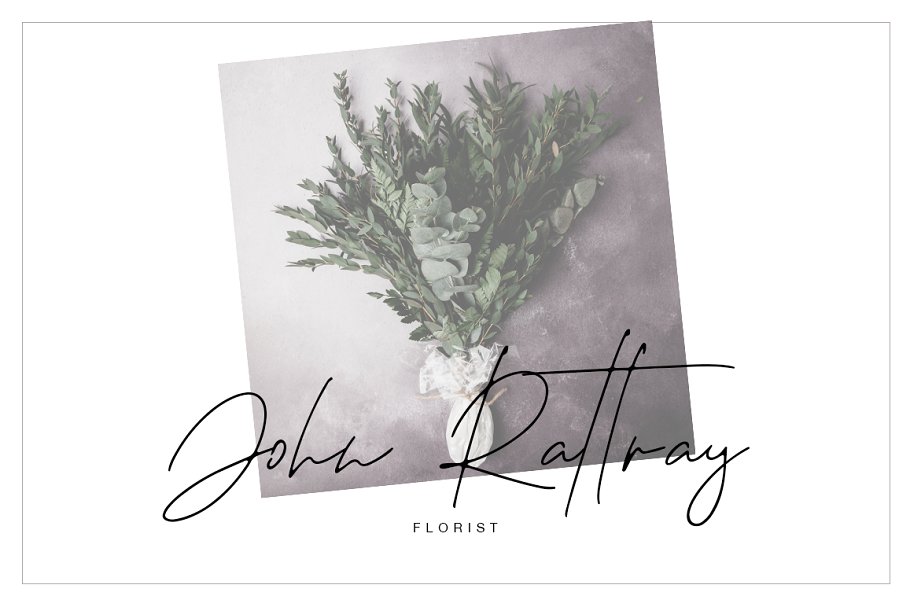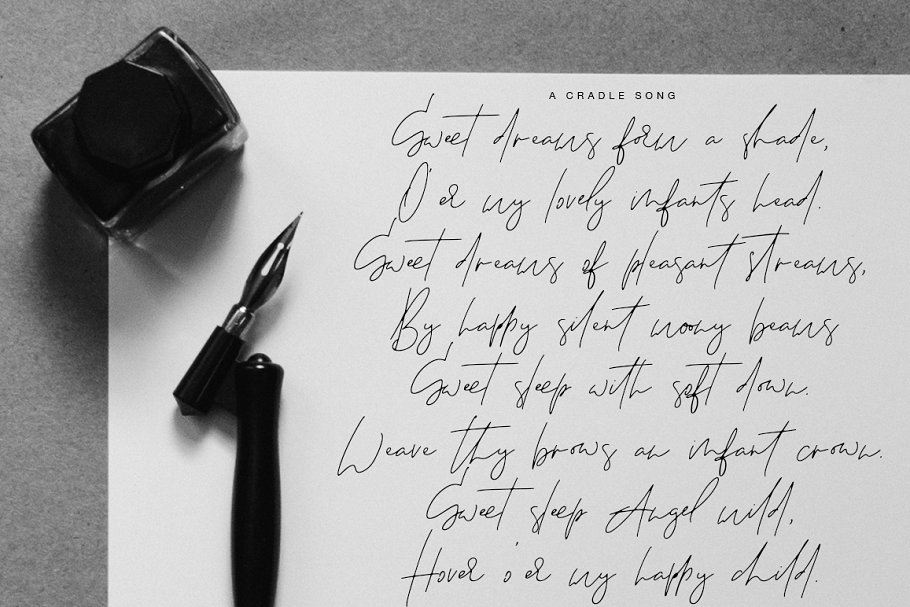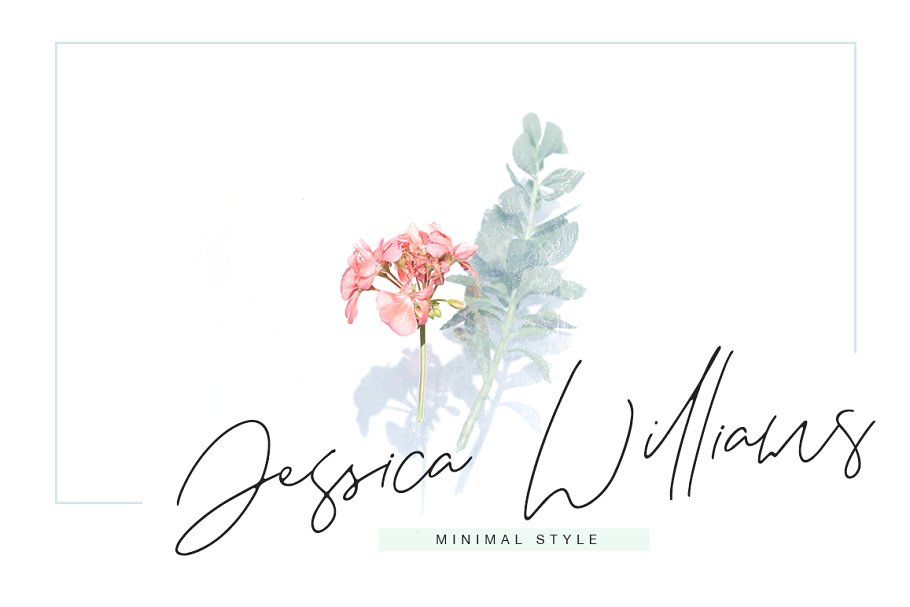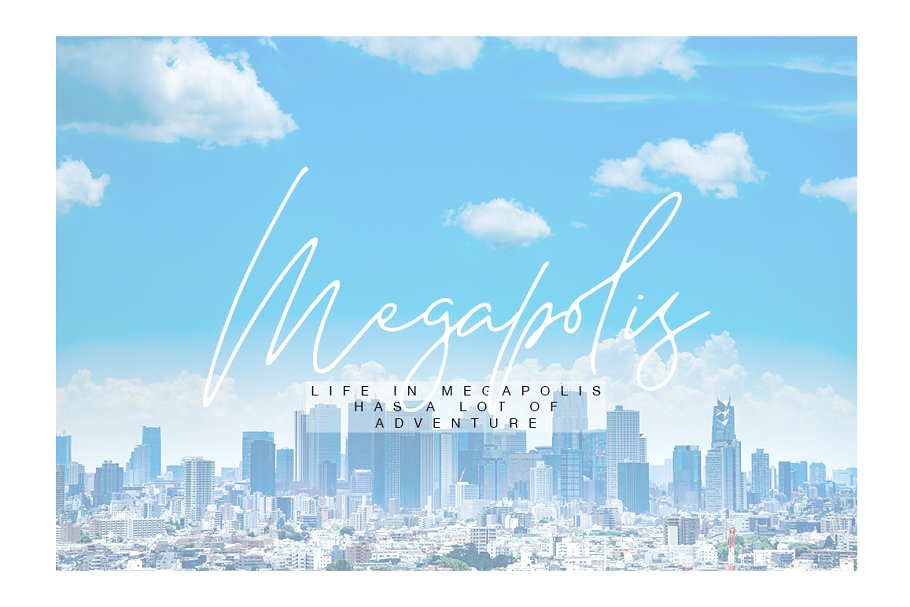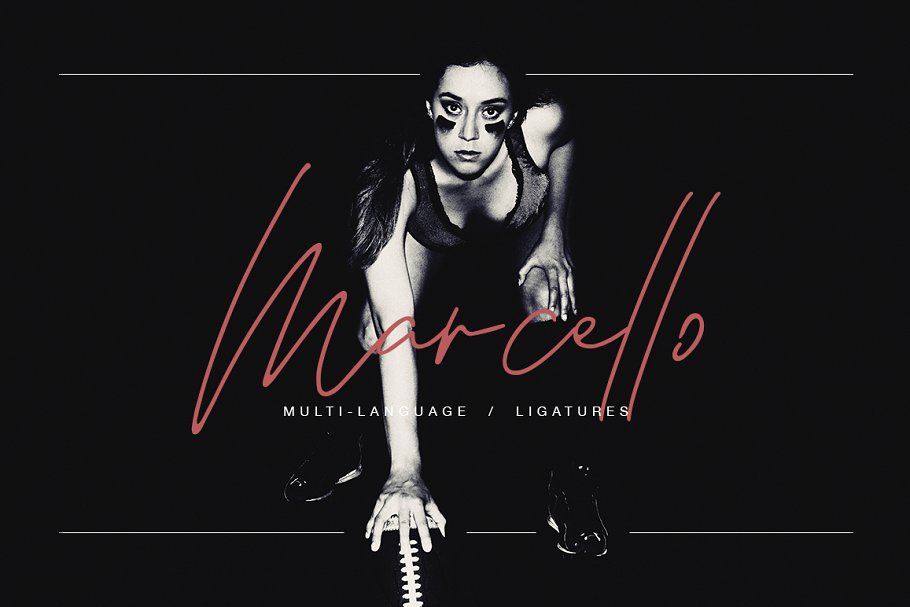
Marcello Font
Very suitable for greeting cards, branding materials, business cards, quotes, posters, and more!This font are perfect for wedding postcard. Or you can create perfect and unique design of your logo, blog, stationery, marketing, magazines and more ๐Ÿ™‚